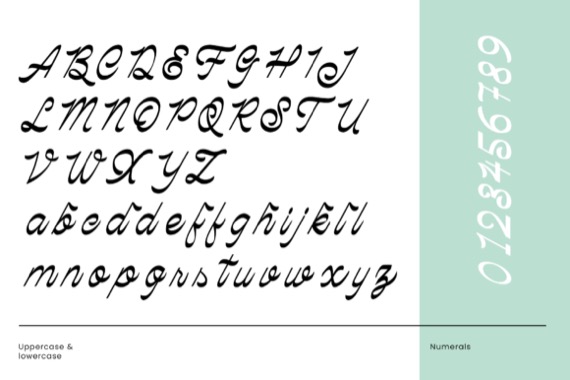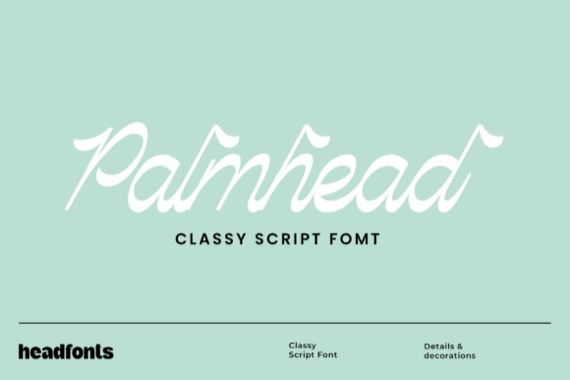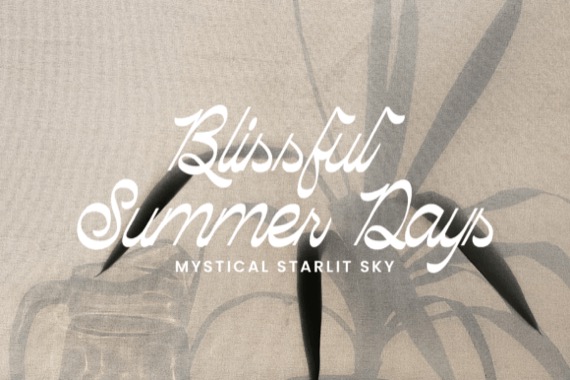
Palmhead is a modern and beautiful script font that was created and published by Headfonts, it showcases its decorative elements and flowing curves. With its high x-height and distinctive design, Palmhead emulates the graceful strokes of handwriting with a marker. This font comes in a single weight and includes both uppercase and lowercase characters. It also offers numerals, symbols, and alternative characters.
Palmhead Handwritten Script Font